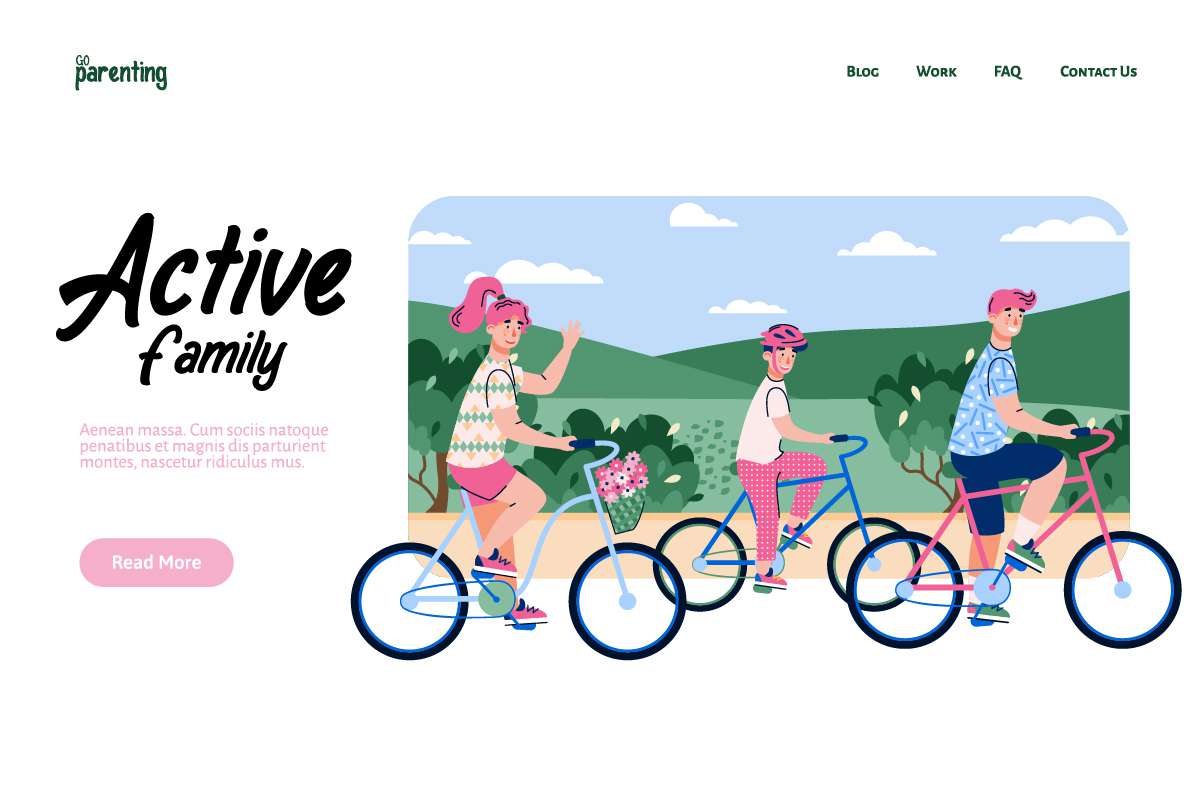
Daybook Font
Daybook Display Font
It’s a fancy kids font with comic handwriting style. Daybook Font comes with uniquely exclusive cute fun style. This font is crafted carefully in every its single line, created to look as close to a handwritten result so that it can create the perfect combination on each glyph. When we make this font, we really want to create a touch fun and cute. This awesome handwritten is for anyone who are needing of creative and fun designs.
Daybook Font includes a full set of Upper and Lowercase Basic Characters, Numbers and Punctuation to create the perfect natural handwritten look to perfect your extraordinary projects. This font has two different styles: Regular and Italic.
Daybook Fancy Kids Font will be awesome for children book, clothing, birthday party/events, invitations, kids, logo branding, school, products packaging, houseware etc